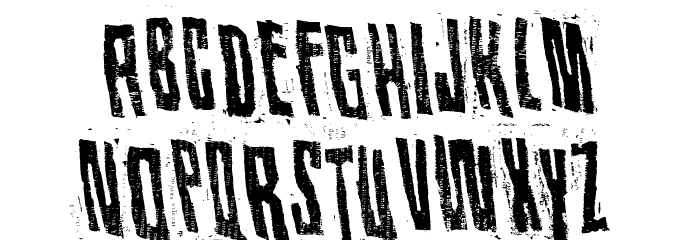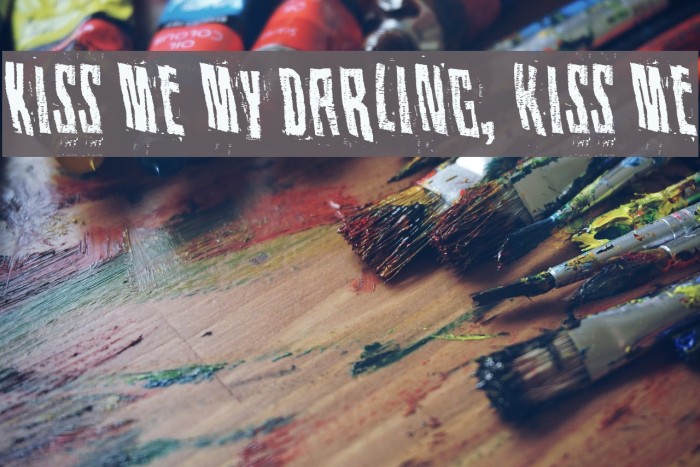
Kiss me my darling, kiss me Font
This font features a bold, distressed style with a grungy, textured appearance. The characters are tall and narrow, giving them a condensed look. The rough edges and uneven strokes contribute to a rugged, handmade feel, reminiscent of vintage posters or DIY zines. The uppercase and lowercase letters maintain a consistent style, with numbers and special characters following suit. This font's unique aesthetic makes it stand out, perfect for projects that require an edgy or rebellious vibe.
A bold, distressed font with a grungy, textured appearance and narrow, tall characters.
- Proposed Projects: Ideal for music album covers, event posters, streetwear branding, or any project needing a gritty, urban edge.
- Character Spacing: Tight
- Overall Style: Grunge, Vintage